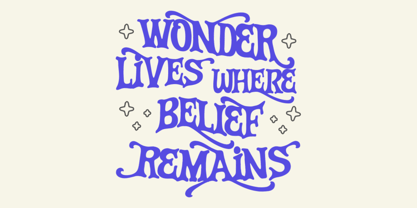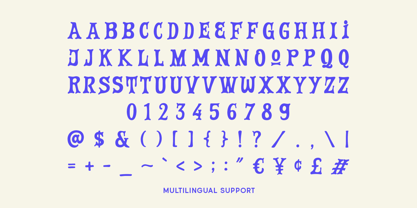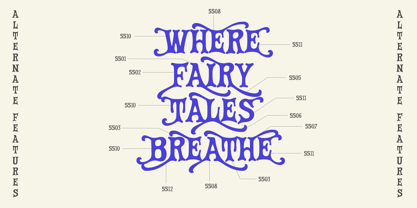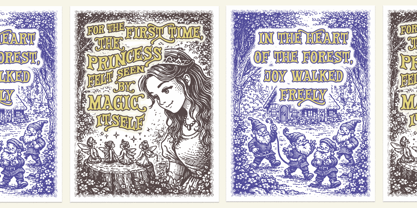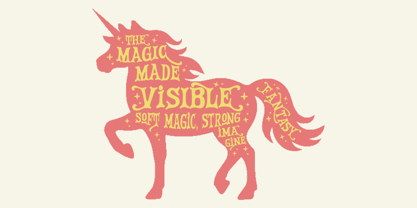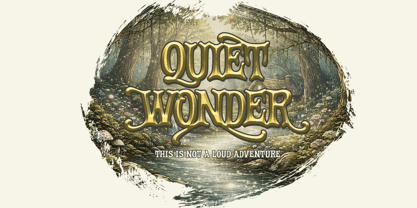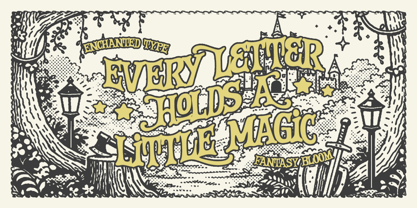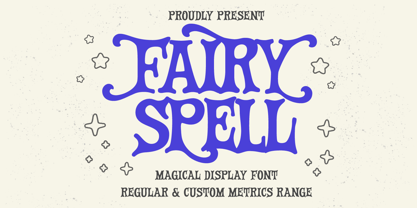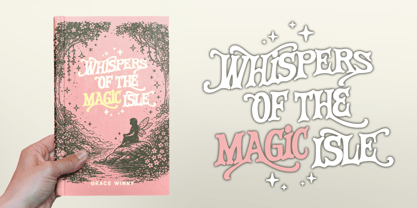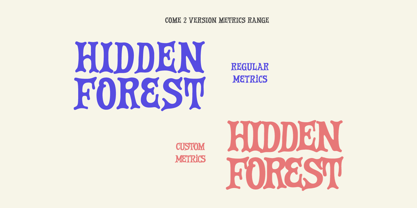
Fairy Spell
Die Schriftfamilie Fairy Spell wurde von Hendry Juanda entworfen und von Letterhend veröffentlicht. Fairy Spell enthält 2 Stile und Familienpaketoptionen. Mehr über diese Familie
Fairy Spell is a magical display font with soft curves, playful serifs, and whimsical letter shapes inspired by storybook fantasy. The characters feel bold yet friendly, with decorative details that add charm without losing readability. It works beautifully for titles, posters, book covers, packaging text, kids visuals, quotes, invitations, and creative branding that needs a touch of magic and fun. Features : Uppercase & lowercase Numbers and punctuation Alternates & Ligatures Multilingual Support PUA encoded